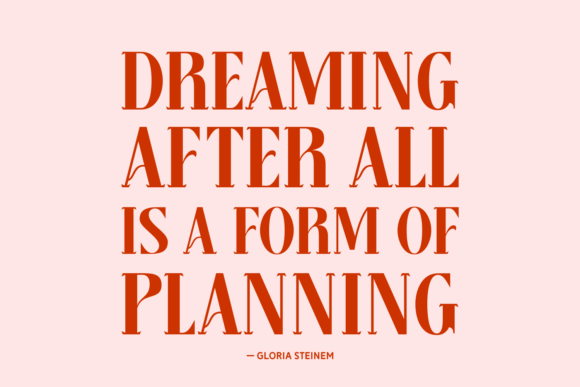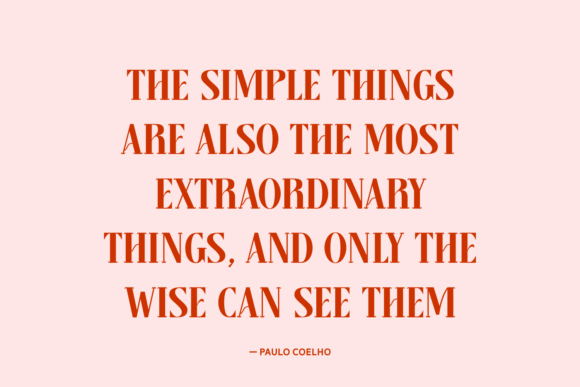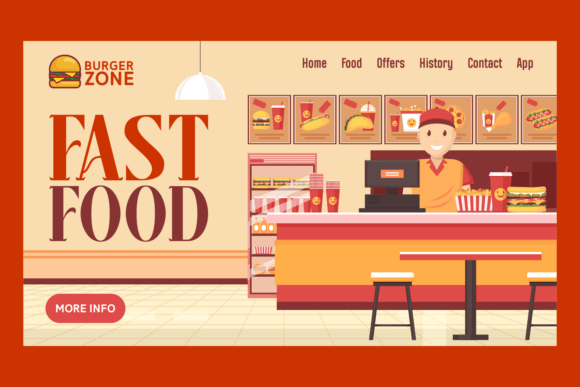
Introduction to Nothing Anymore Font Font
Fonts play a crucial role in design, and the Nothing Anymore Font font is a typeface that brings both character and versatility to any project. Whether you’re working on a branding project, a website, or a print design, the Nothing Anymore Font font offers a unique style that can elevate your work.
Embrace the sheer versatility of βNothing Anymore,β a unique serif typeface that elegantly blends modern and traditional styles, creating a perfect synergy.
Framed with an authentic touch, this font is a seamless fit for photography accents or apparel branding Make your book covers and magazines stand out with its clean yet distinctive charm, or bring a layer of sophistication to your logotypes and branding projects.
Key Features of Nothing Anymore Font Font
Why Choose Nothing Anymore Font Font?
The Nothing Anymore Font font is more than just a typeface β it’s a design tool that helps you communicate your message with style and clarity. Its unique character set and versatile design make it suitable for a wide range of applications, from elegant invitations to bold headlines.
With its carefully crafted letterforms and balanced proportions, the Nothing Anymore Font font ensures readability and visual appeal across all mediums.
What makes Nothing Anymore Font font special?
The Nothing Anymore Font font stands out with its unique design, exceptional readability, and versatility across various design applications.